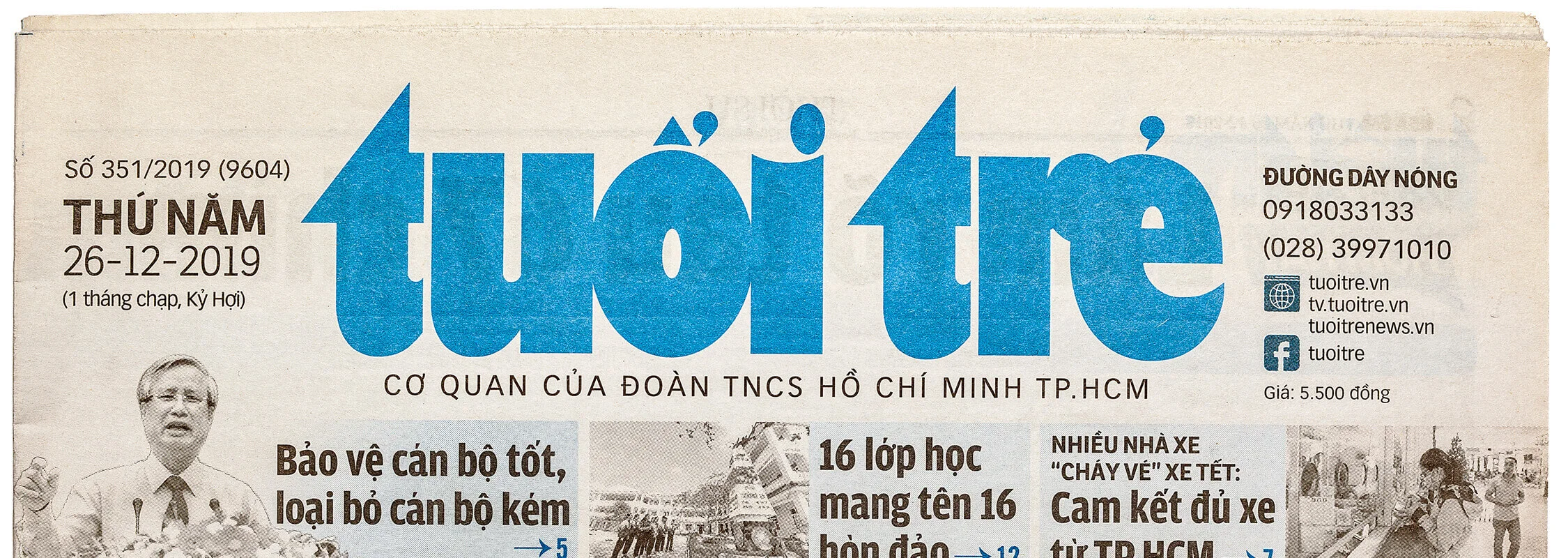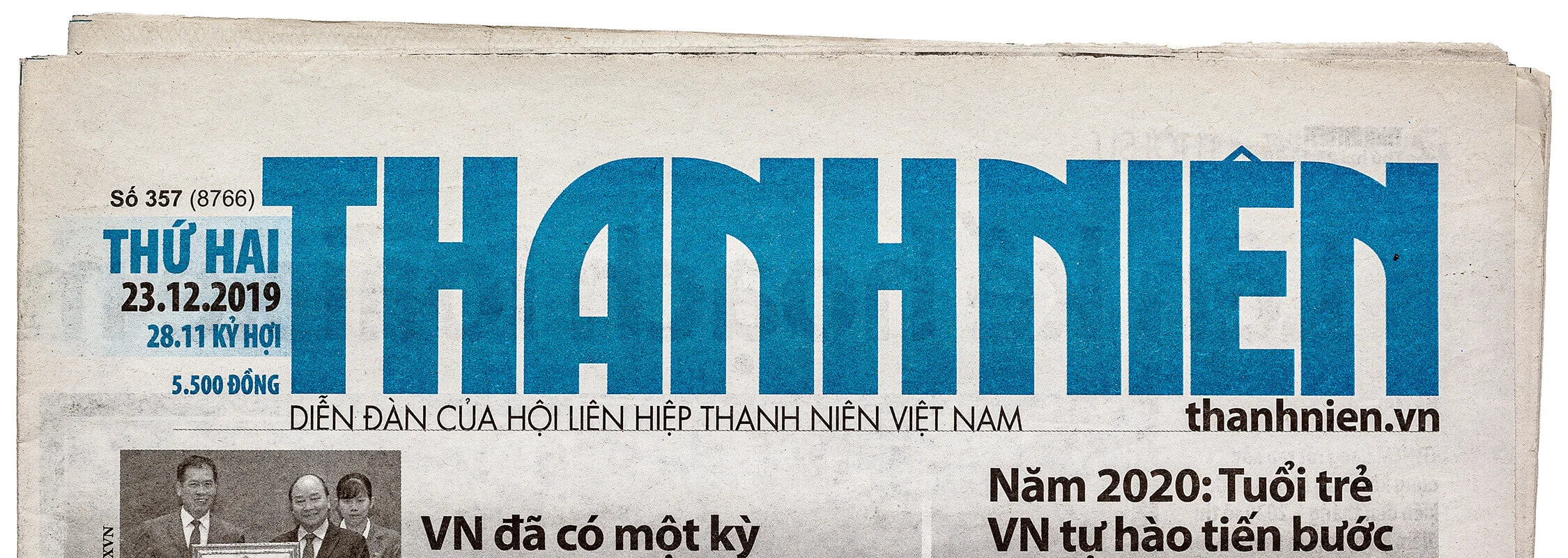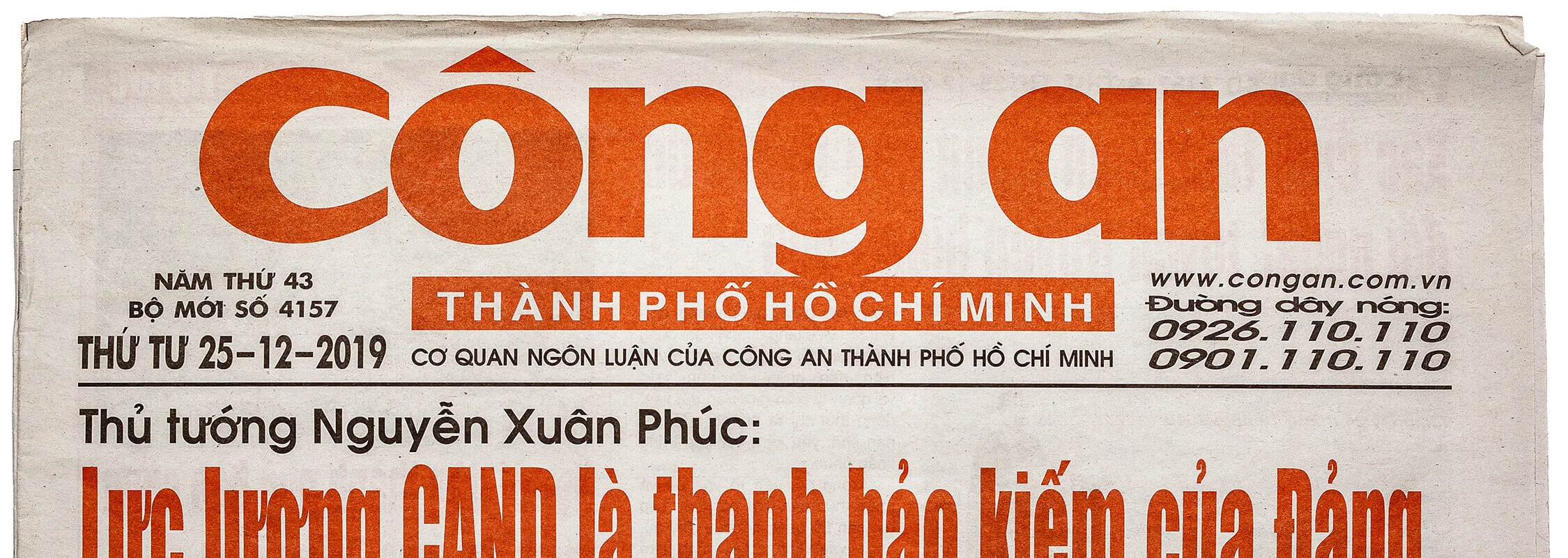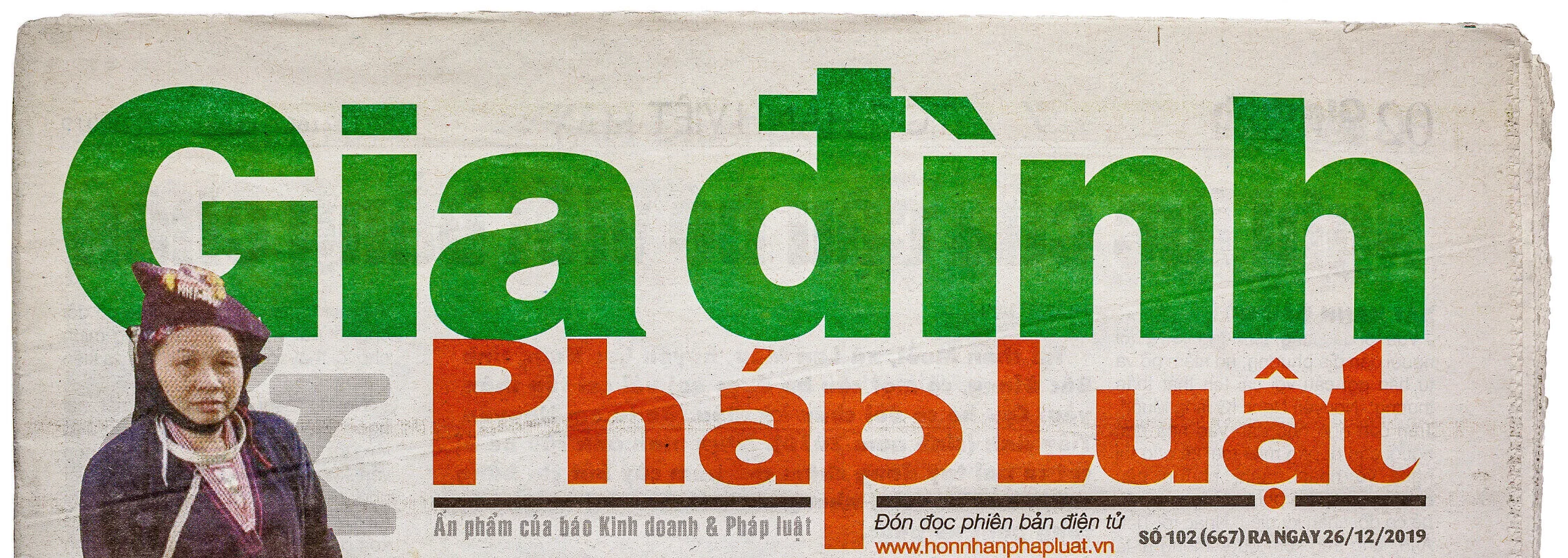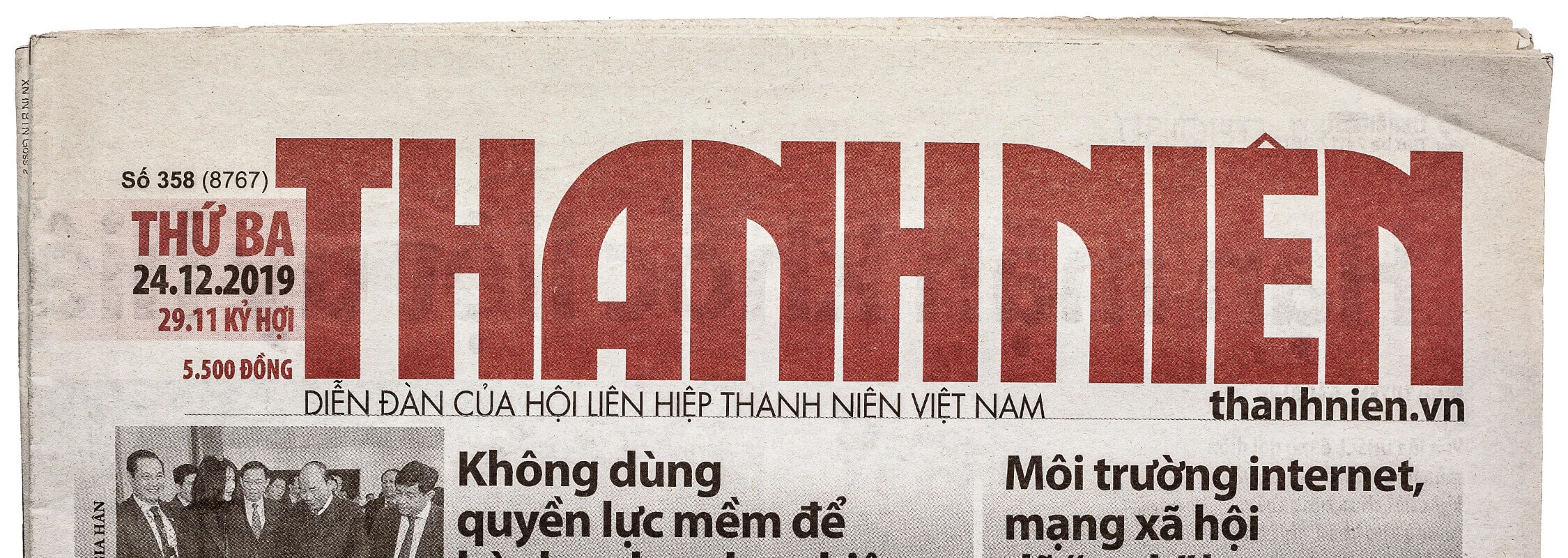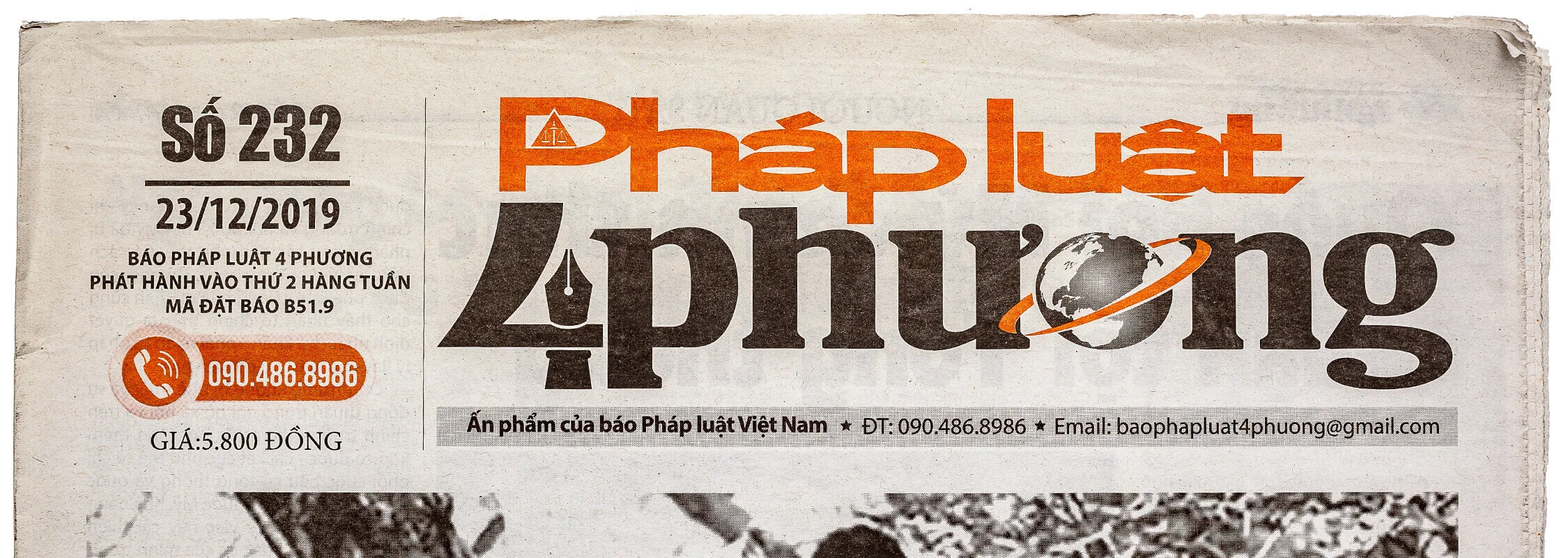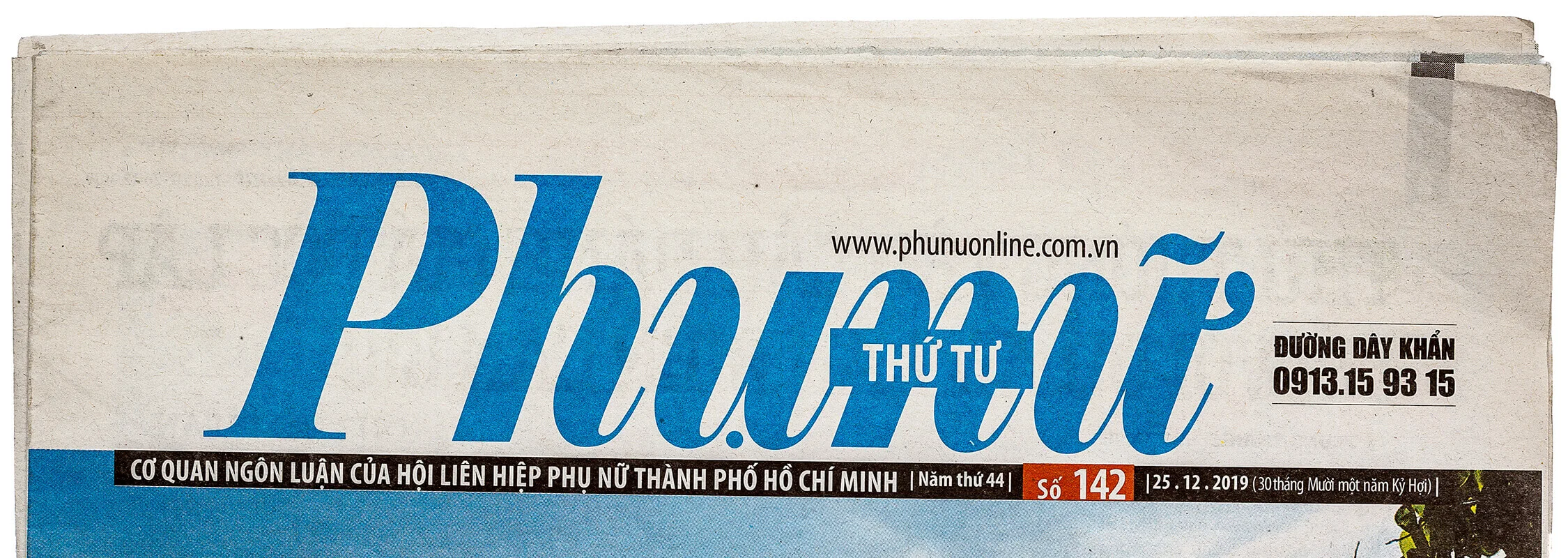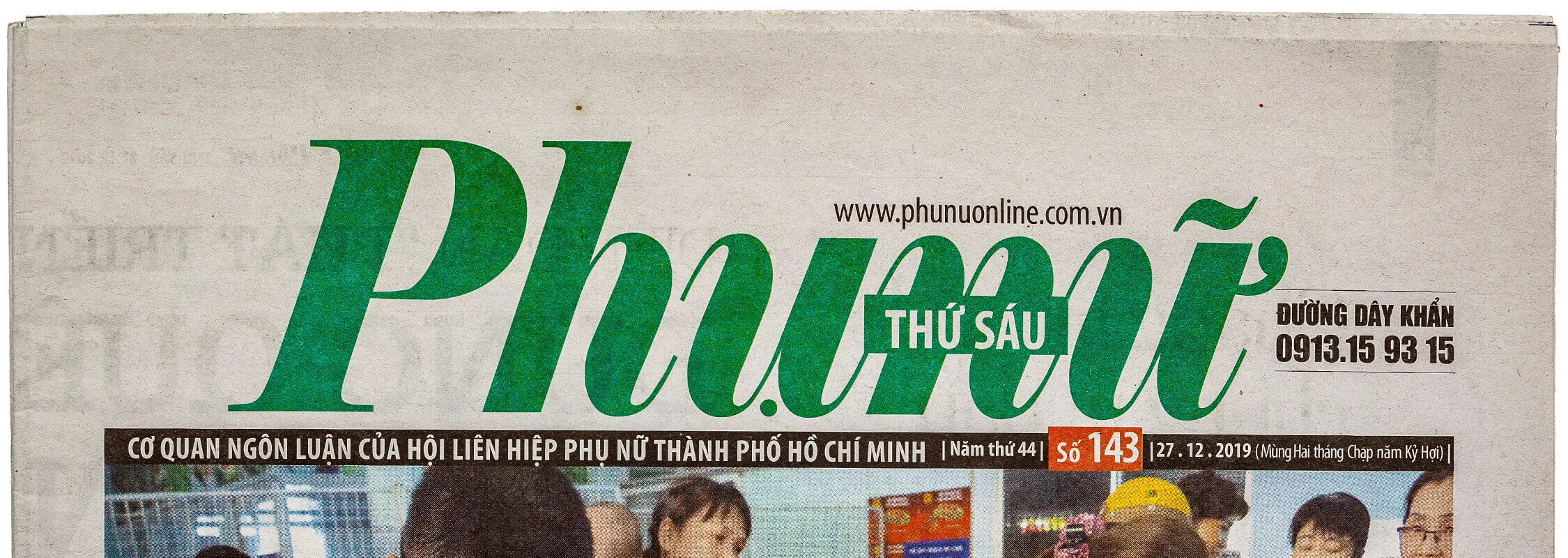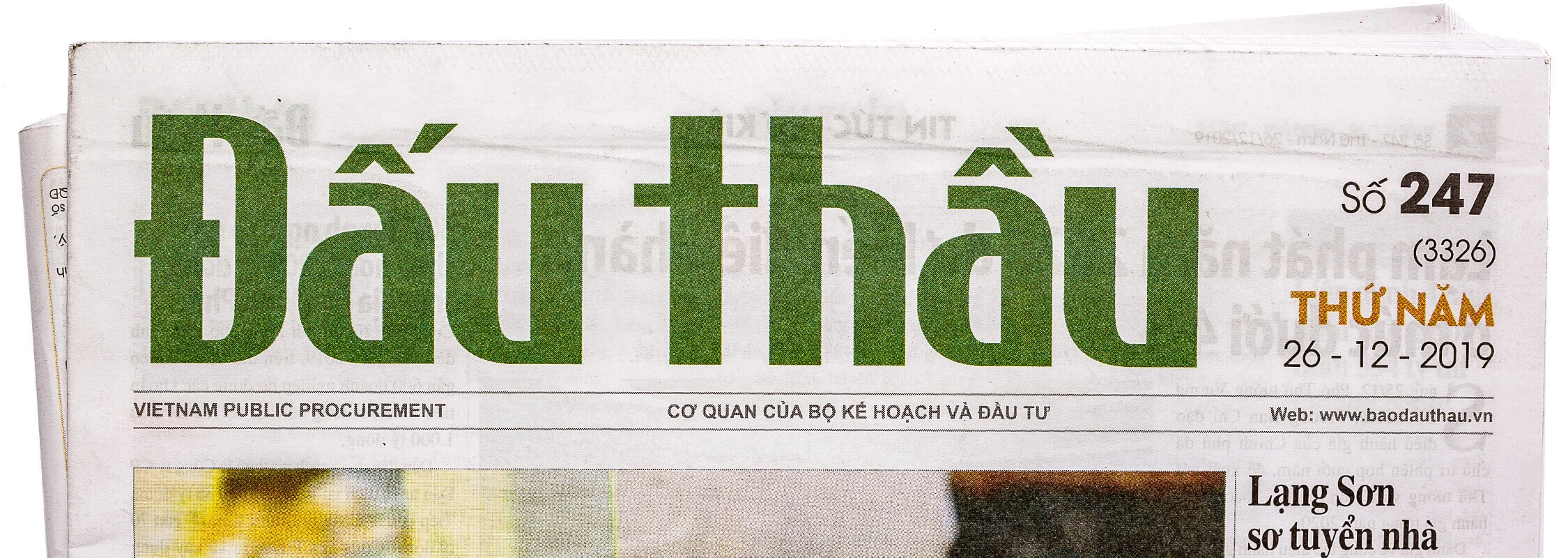
A chance discovery not far from the memorial to Thích Quảng Đức— who set himself alight in Saigon on 11 June 1963 in protest against the persecution of Buddhists: at a roadside stall, the colourful newspaper headlines immediately draw attention.
Despite the late hour, the vendor is still doing good business. I purchase all available issues—provided they are sufficiently colourful—much to her amusement. With this, a new collection of international newspapers may well have found its beginning.